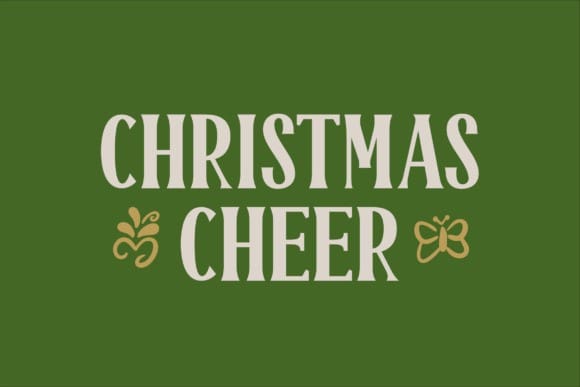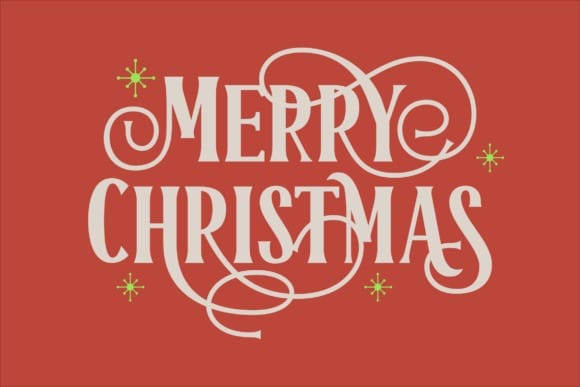
Frosty Christmas Font
Frosty Christmas Font is a festive and elegant typeface that captures the magic of the holiday season. With its decorative swirls and vintage-inspired serifs, this font is perfect for creating warm, joyful designs. The extra embellishments and bonus dingbats add a playful touch, making your holiday designs even more enchanting and memorable. Celebrate the season with the timeless charm of Frosty Christmas!